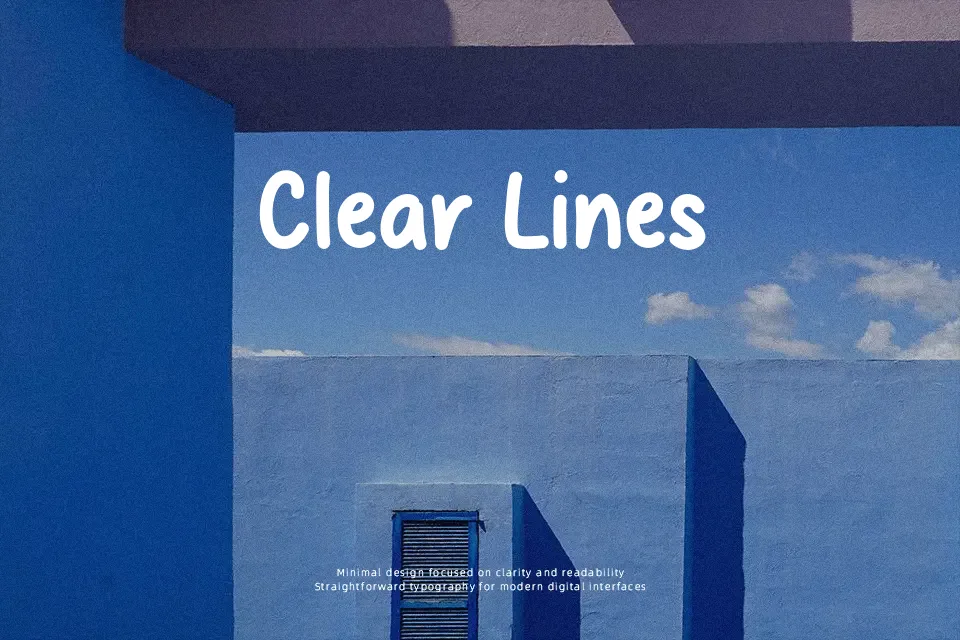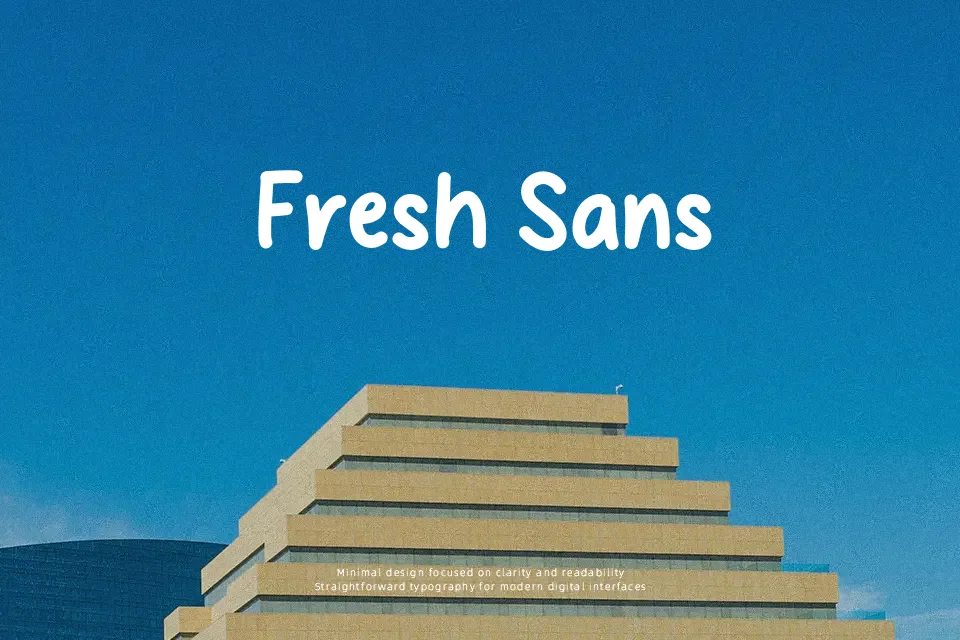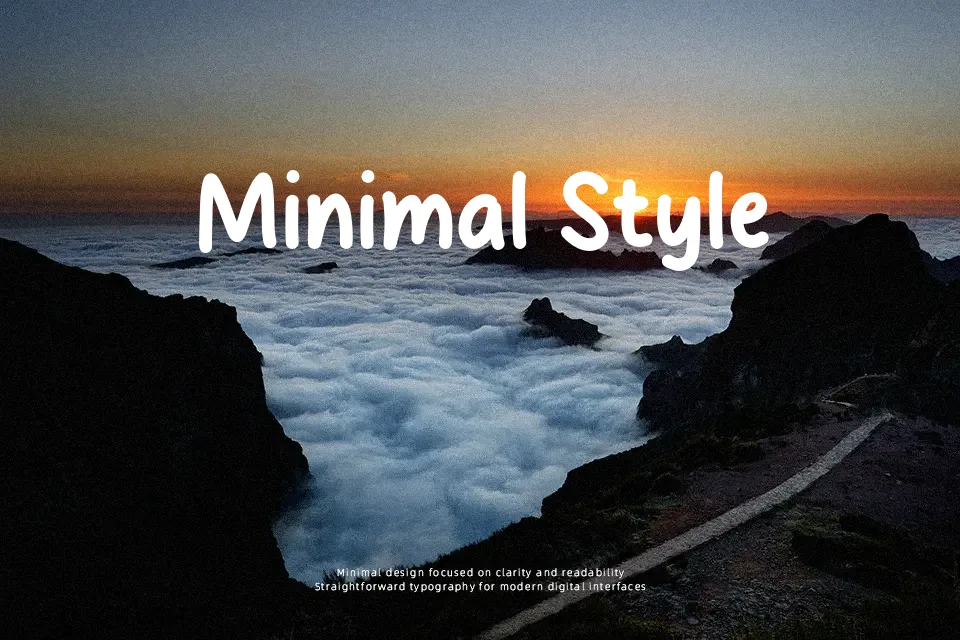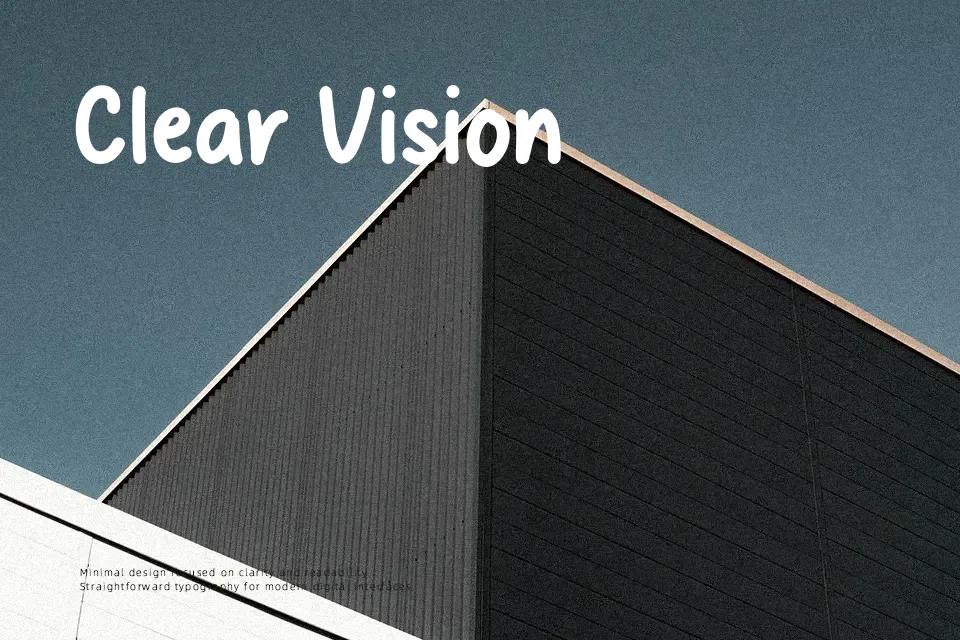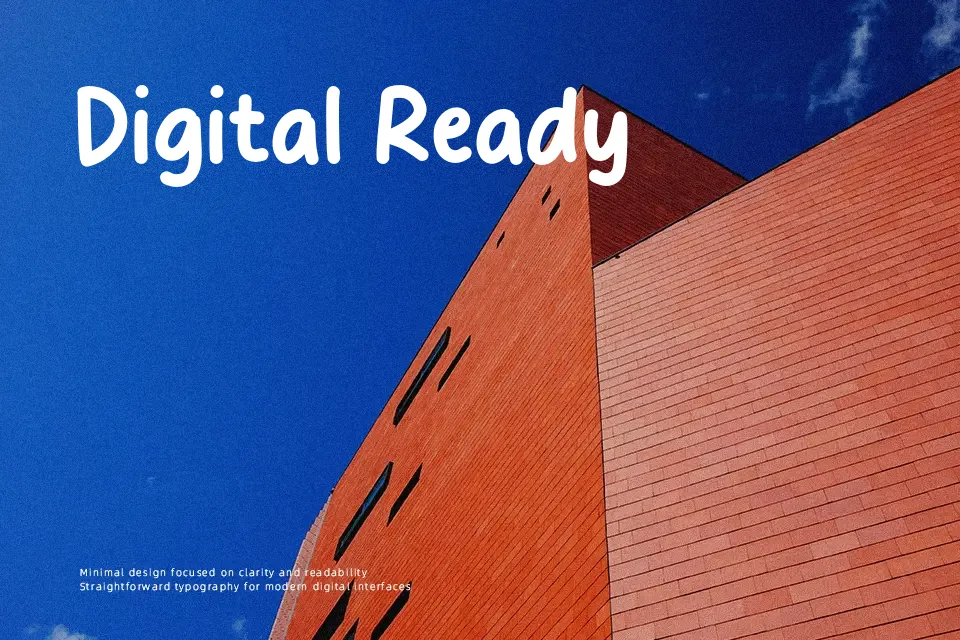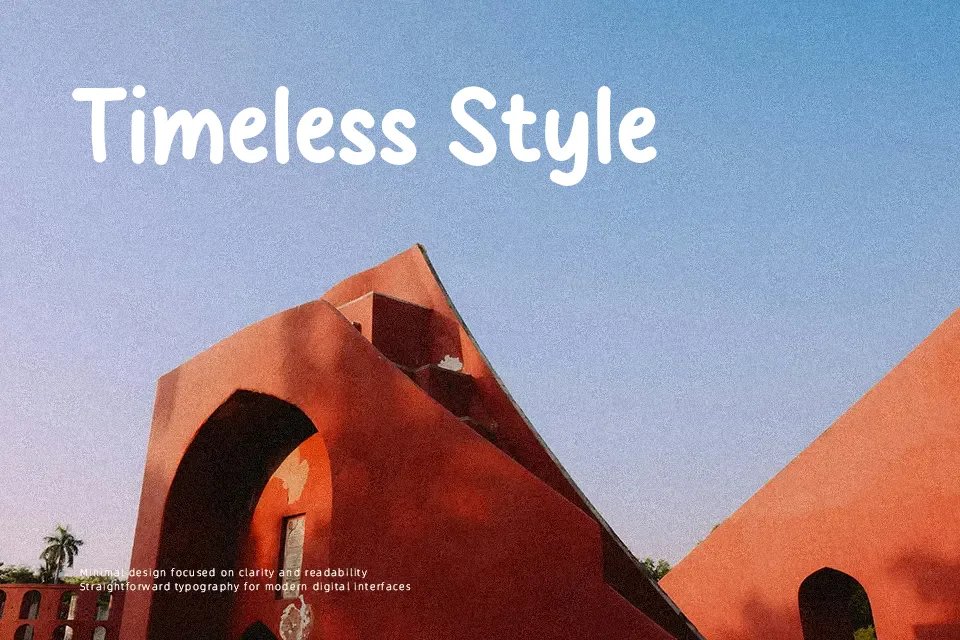
Cheese Matcha Font
A vibrant product label or animated video title benefits substantially from the distinct aesthetic of Cheese Matcha Font. Built around ultra-heavy weights and plump, softened contours, the typeface delivers immediate visual punch across prominent headline placements. Uniformly wide proportions and minimal stroke contrast create consistent weight throughout the uppercase and lowercase sets, while compact letter spacing keeps words cohesive. The exaggerated rounded terminals enhance friendly appeal in large signage, though dense configurations reduce comfort during extended reading. Consequently, the design remains less effective for long-form editorial copy or small technical captions where letter discrimination suffers.
Best For: snack packaging, children’s book covers, cartoon title cards, casual apparel graphics
Not Ideal For: dense body text, corporate financial reports, small legal disclaimers, technical documentation
Perfect for branding, headline, and kids, with a bold and cartoon style.